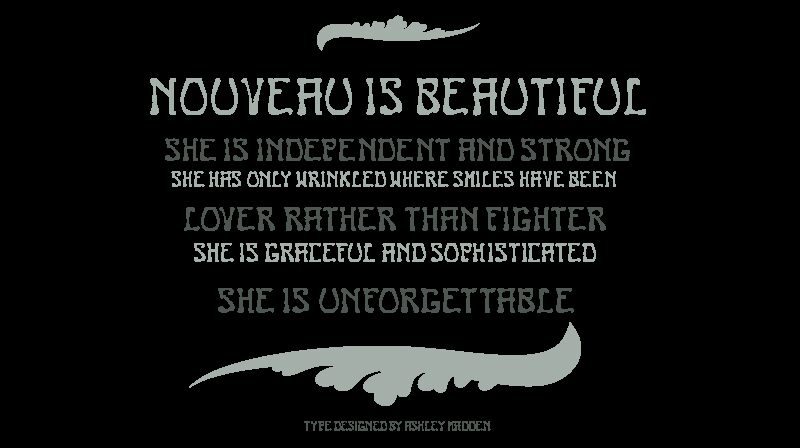
Nouveau is a free Art Nouveau display font built from sinuous, tapering strokes and softly flared ends. Its narrow proportions and pronounced thick-thin changes give the lettering an elegant, hand-drawn silhouette, with a slight irregularity that keeps the formal shapes from looking mechanically drawn. The curves feel ornamental rather than fussy.
Its turn-of-the-century character is well suited to theater posters, literary covers, and invitations with a historical or decorative theme, especially when botanical artwork or decorative borders are central to the project. For perfume packaging and boutique hotels, the flowing construction can become part of the brand identity, echoing wrought iron, vines, and other period-inspired ornament.
Nouveau
Ashley Madden